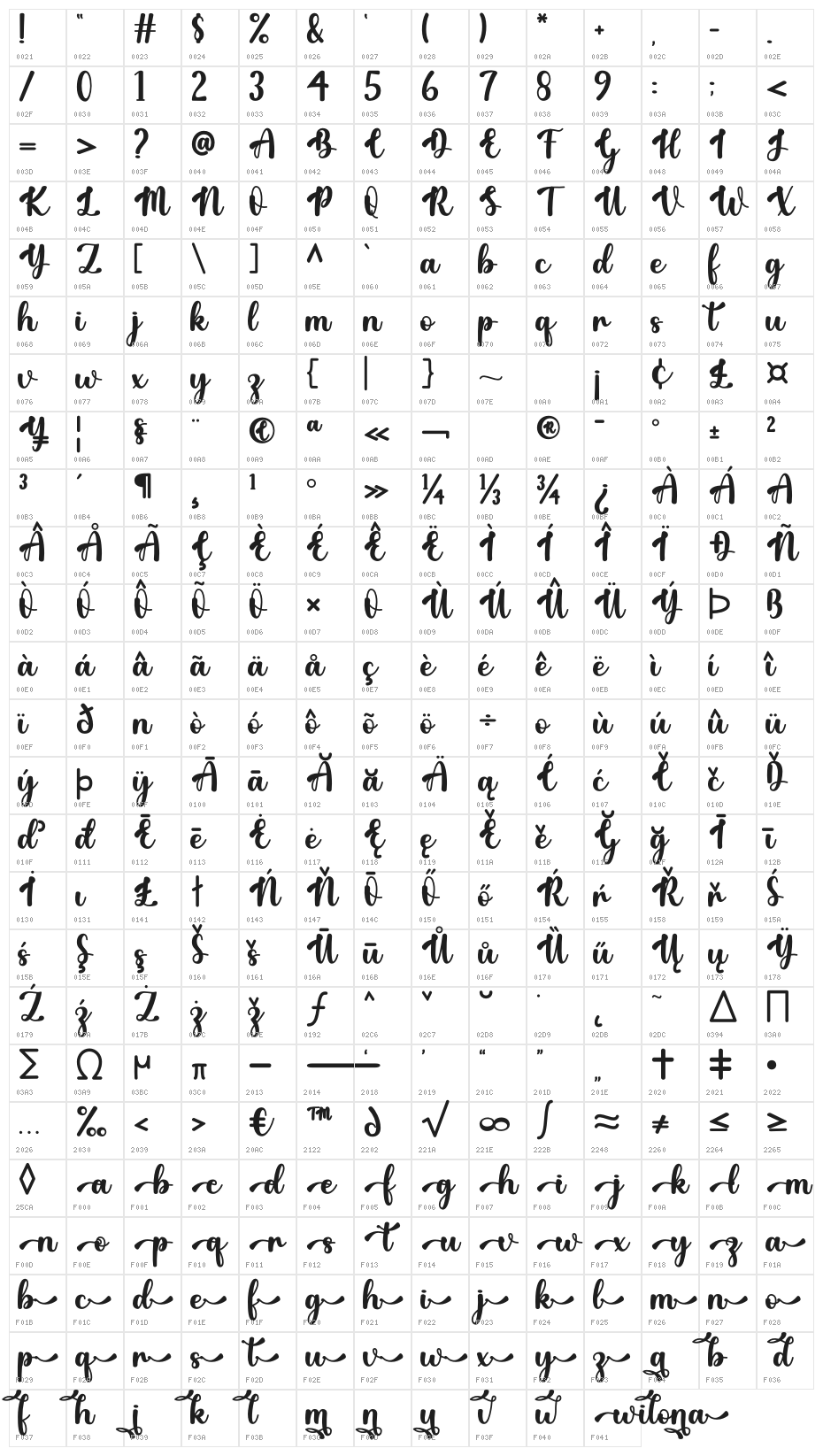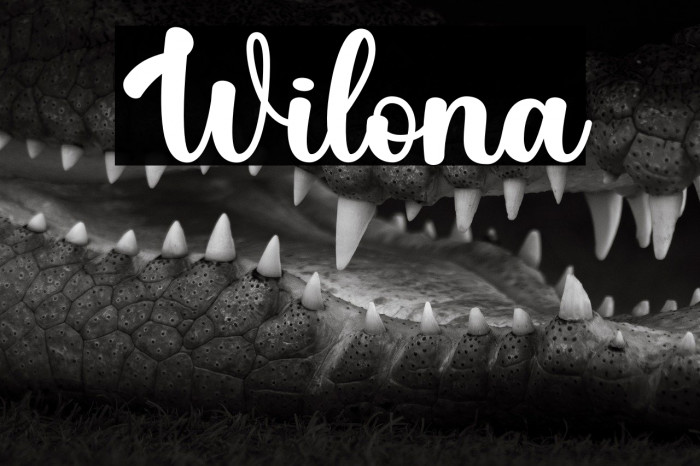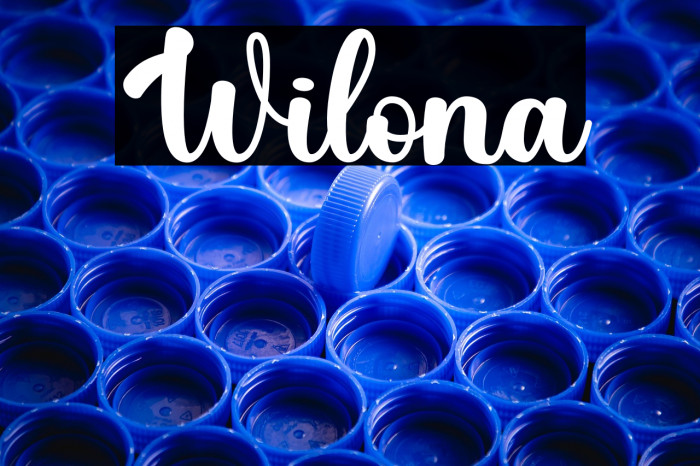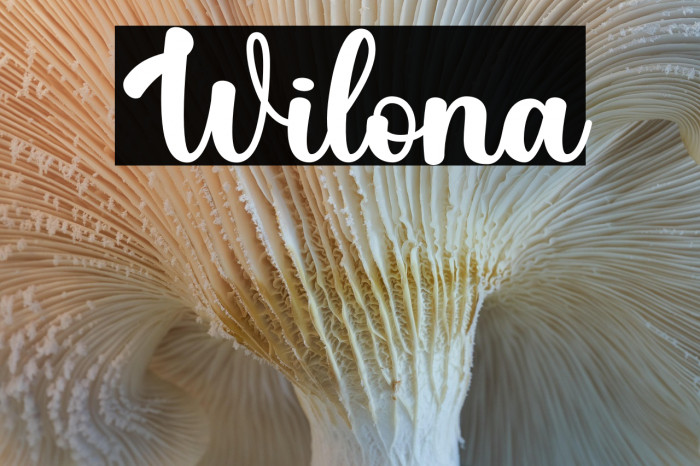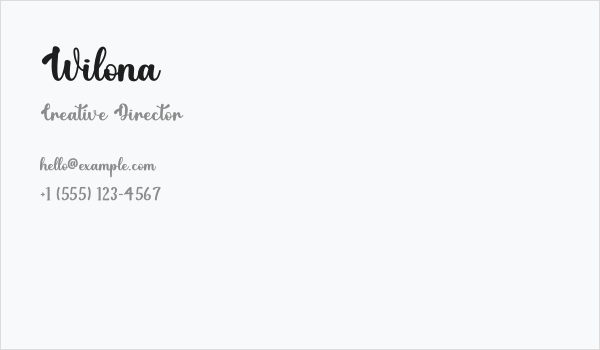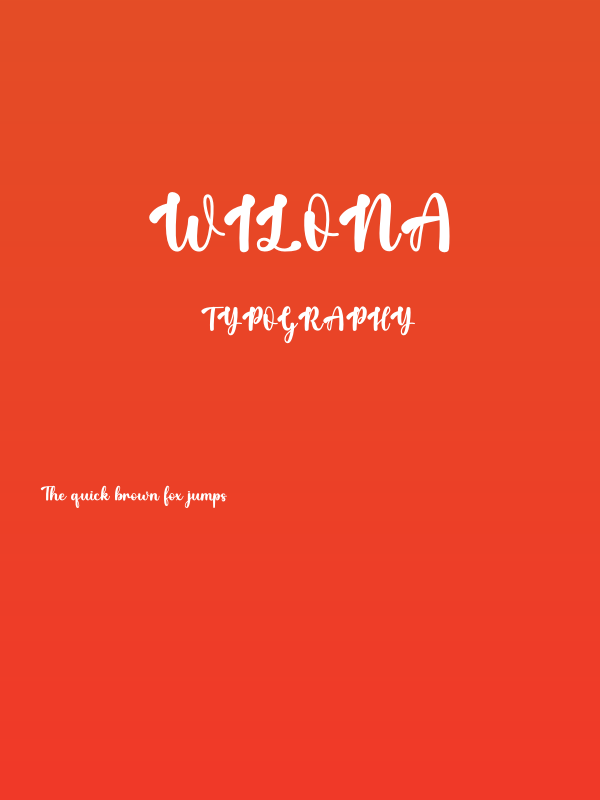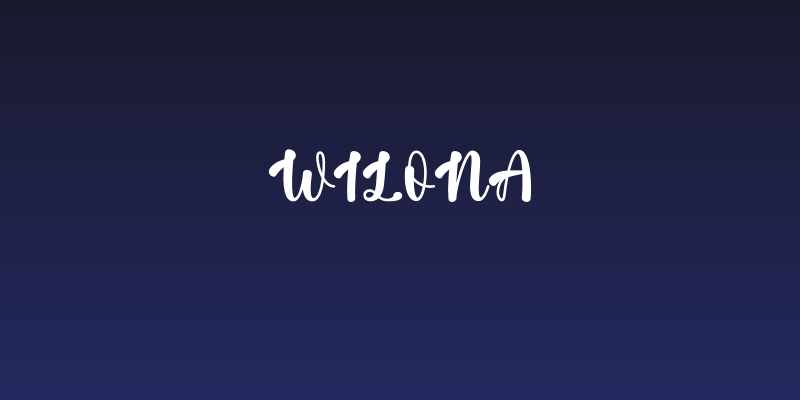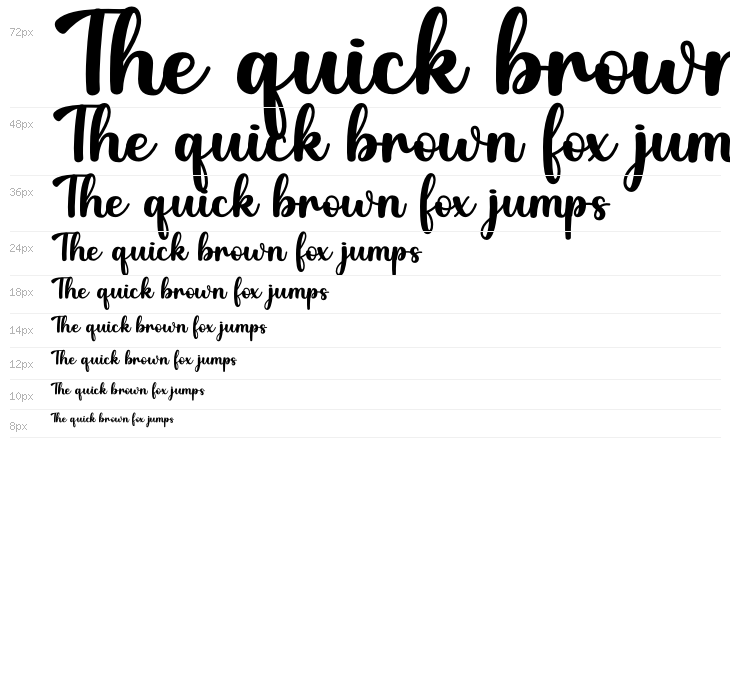
Wilona Font
Wilona Description
This font features a bold and expressive script style with a playful and flowing appearance. The characters are interconnected, giving a sense of continuity and movement. The uppercase letters are slightly larger and more pronounced, while the lowercase letters maintain a consistent flow. The numbers are bold and rounded, matching the overall style of the letters. Special characters are creatively designed to blend seamlessly with the rest of the font. The strokes are thick, providing a strong visual impact, and the overall design is both elegant and modern, making it suitable for a variety of creative projects.